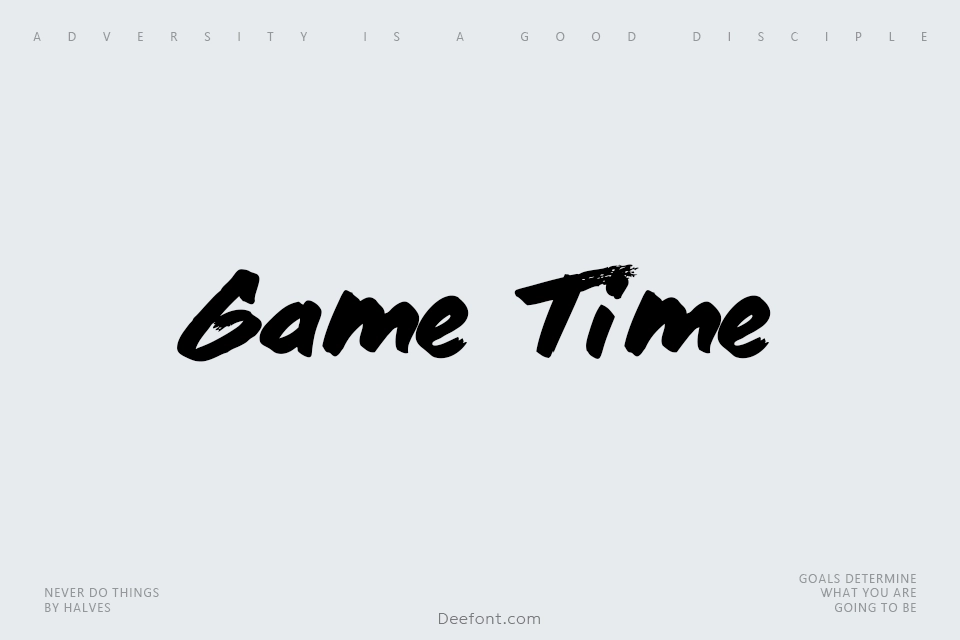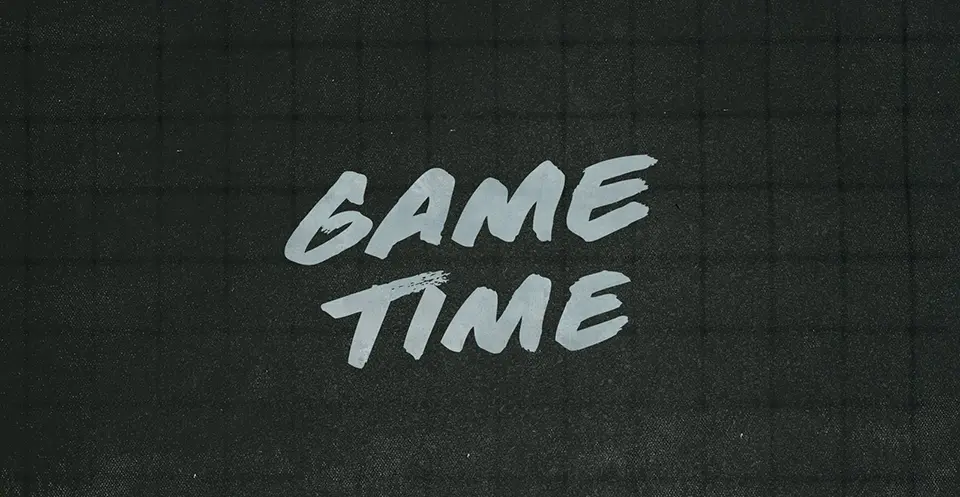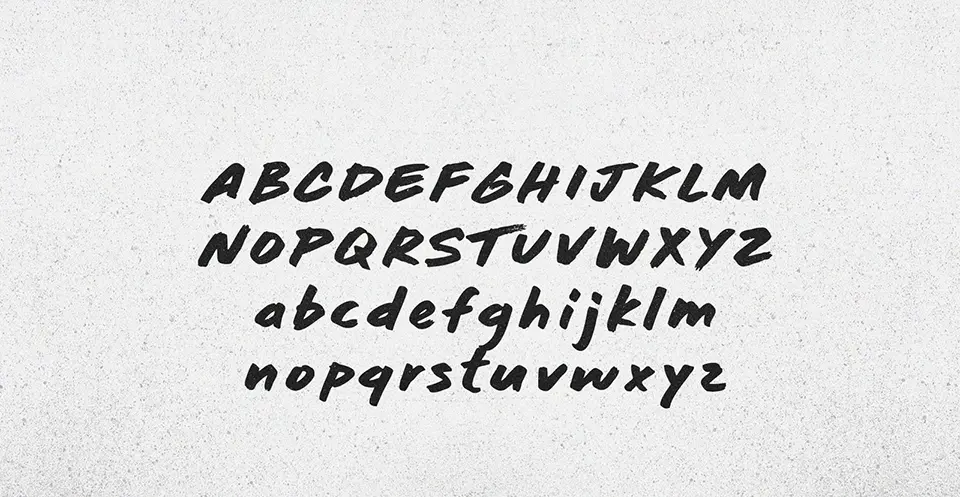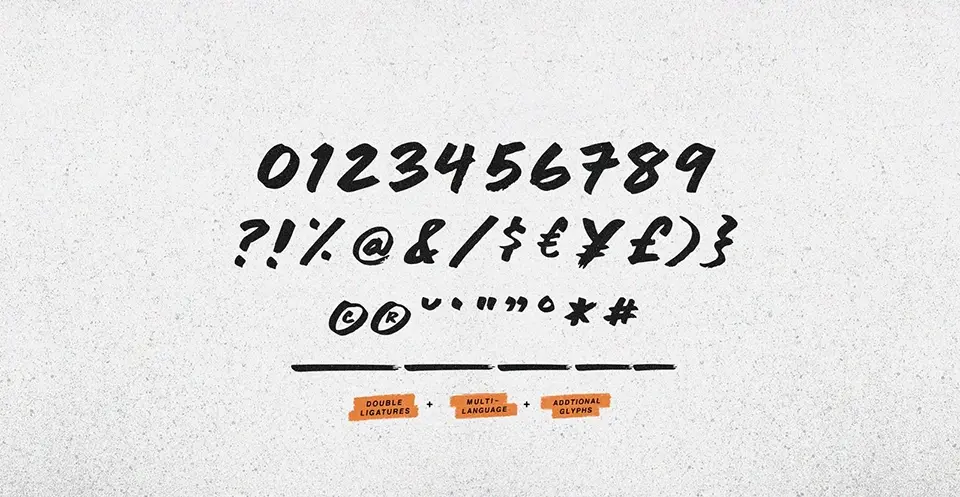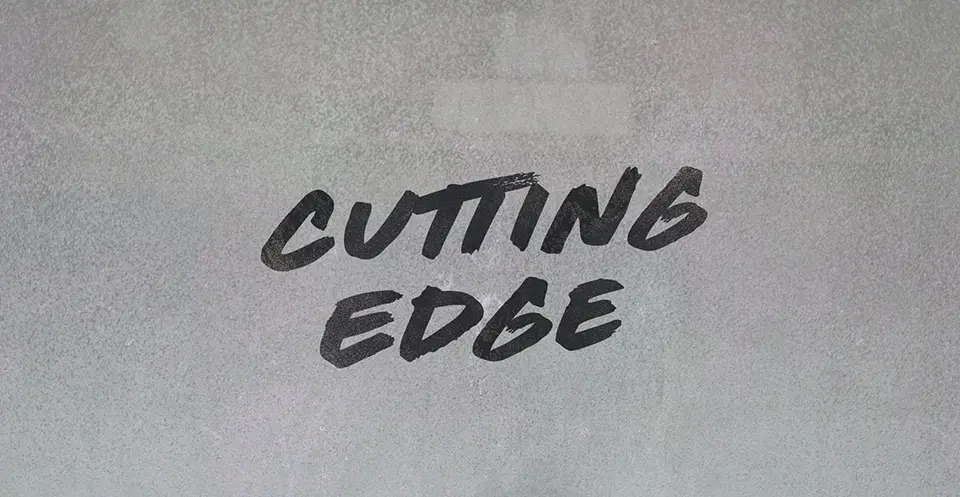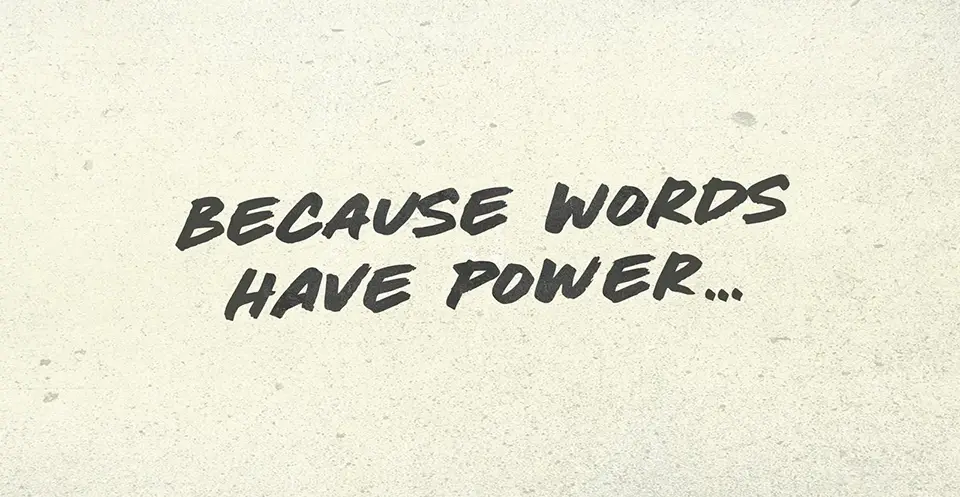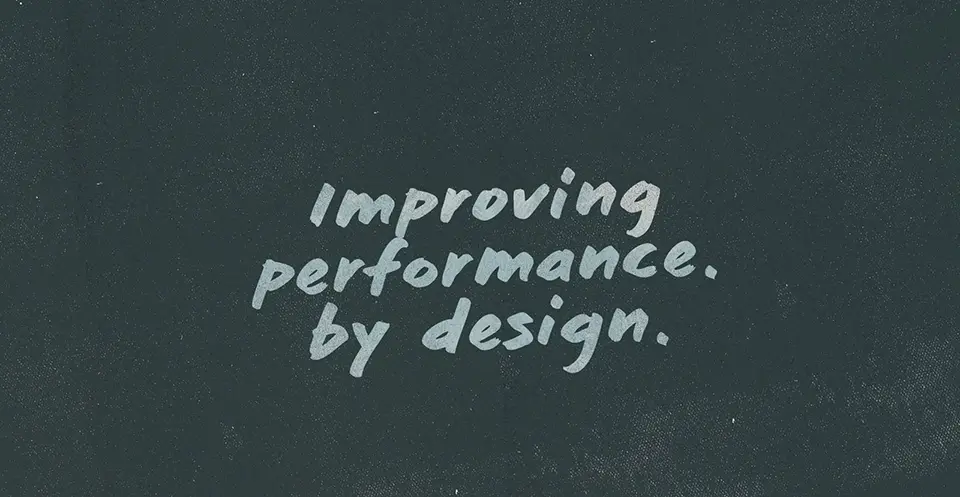
Game Time Font
Game Time is a bold, handwritten brush marker display font that combines raw energy and strength with a quick-stroke style. Created using a chisel tip marker technique, this dynamic typeface features hand-drawn character and natural texture. Influenced by 1980s retro artwork merged with modern urban art and graffiti culture, Game Time delivers an appealing contrast between structured letterforms and organic looseness, making it ideal for headlines, gaming projects, and creative design work.